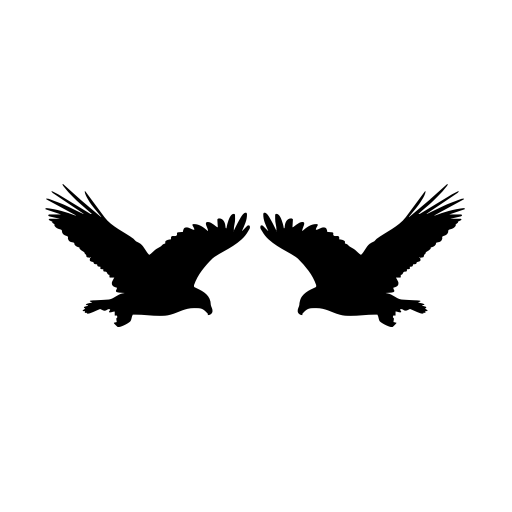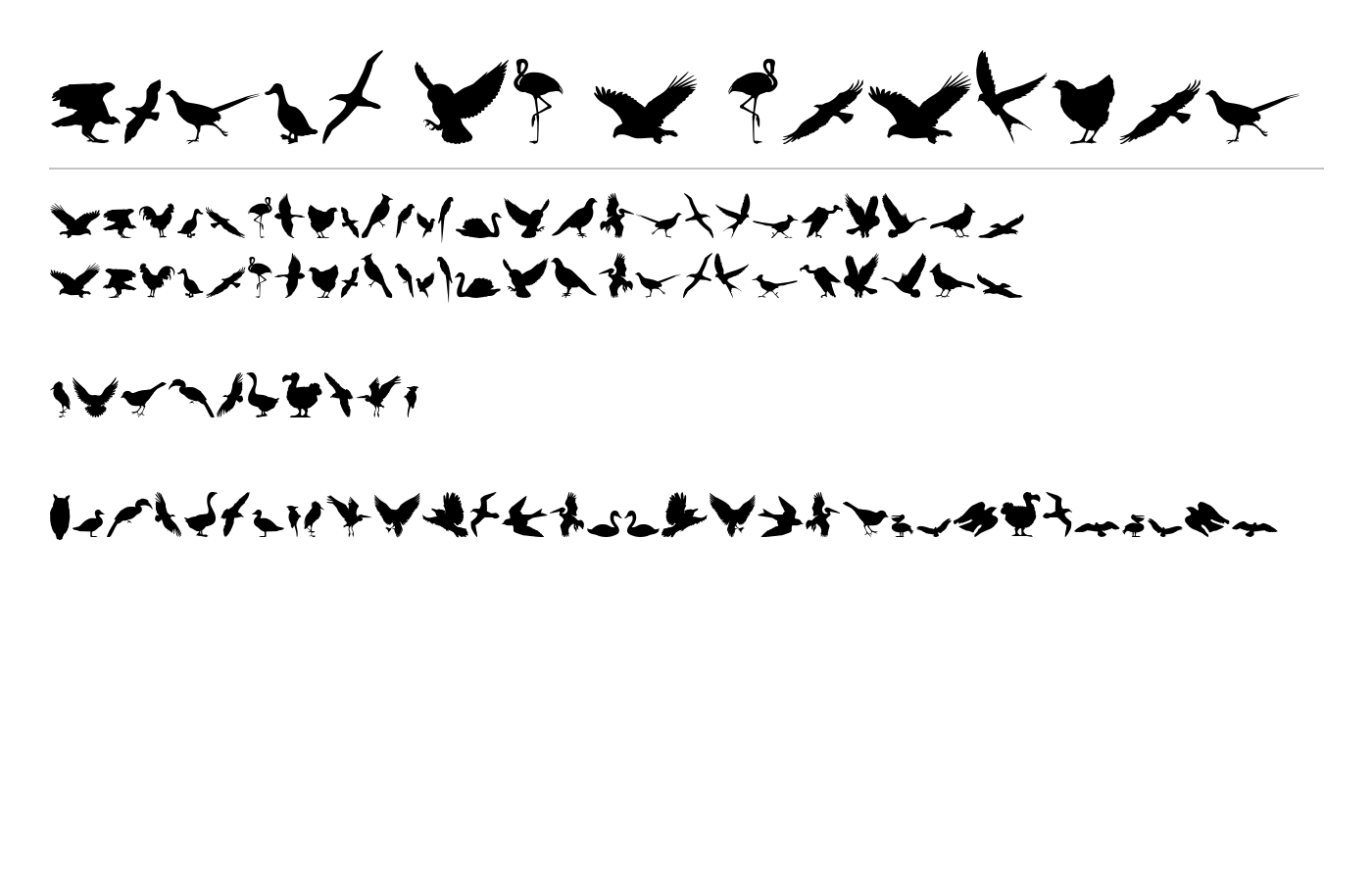
Birds of a Feather is a unique pictorial font composed entirely of bird silhouettes in various poses and species, offering a playful and organic feel. This decorative font works well for creative projects, nature-themed designs, and branding that seeks a whimsical or natural touch, adding visual interest without traditional letterforms. It’s ideal for logos, posters, and packaging where distinctive imagery can convey personality and charm.
Birds of a Feather Font
About Birds of a Feather Font